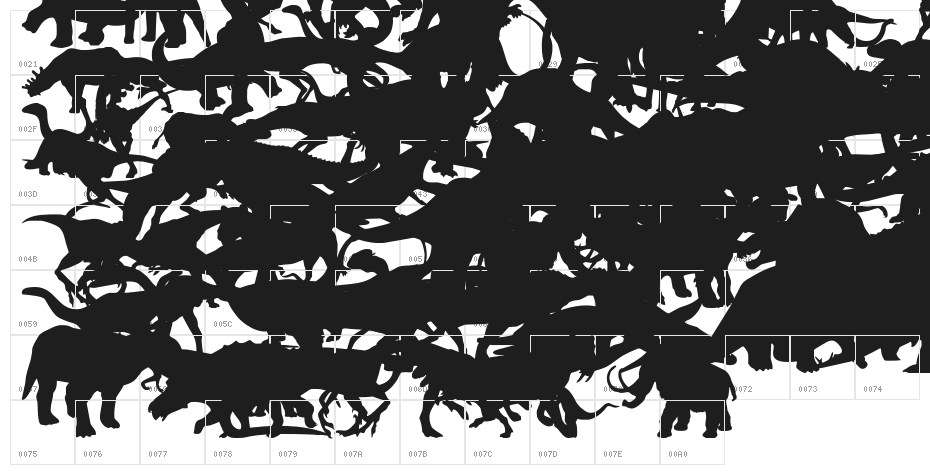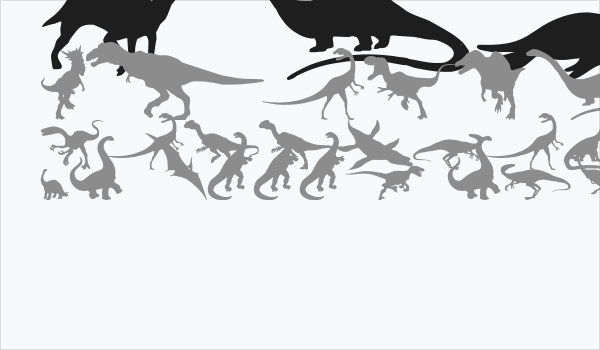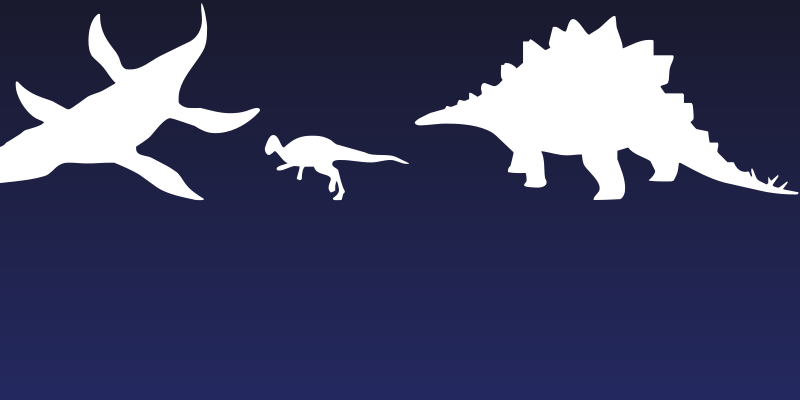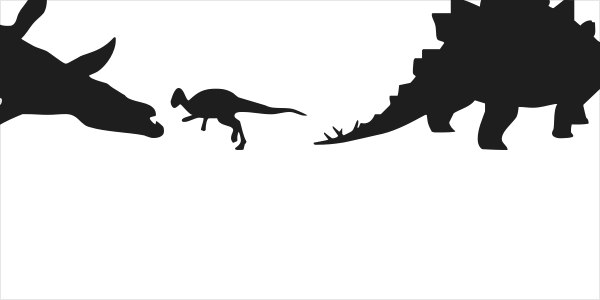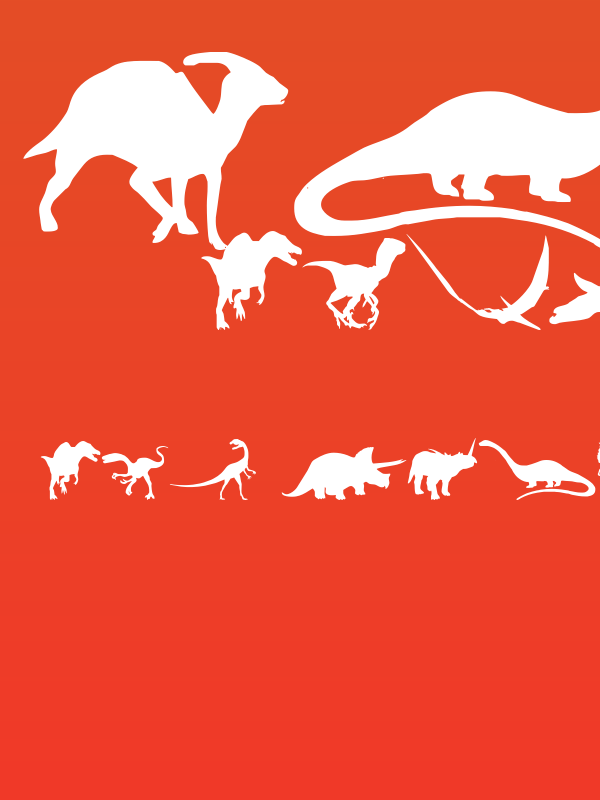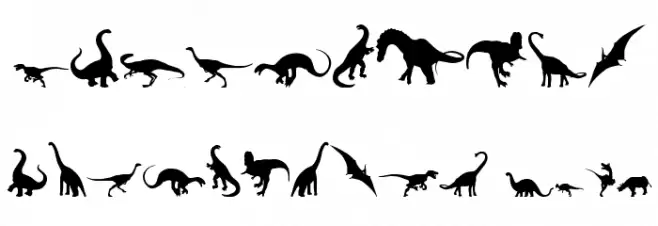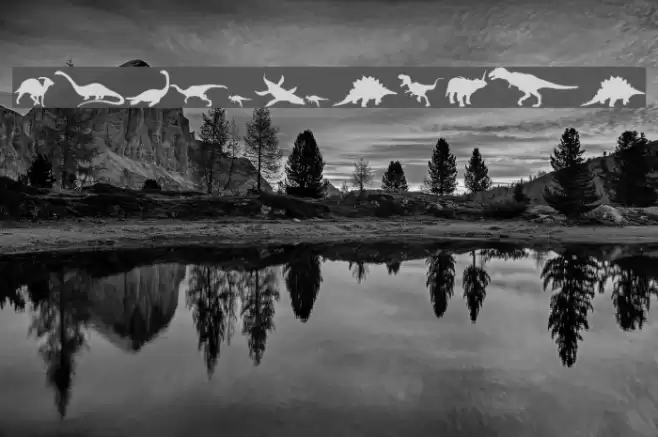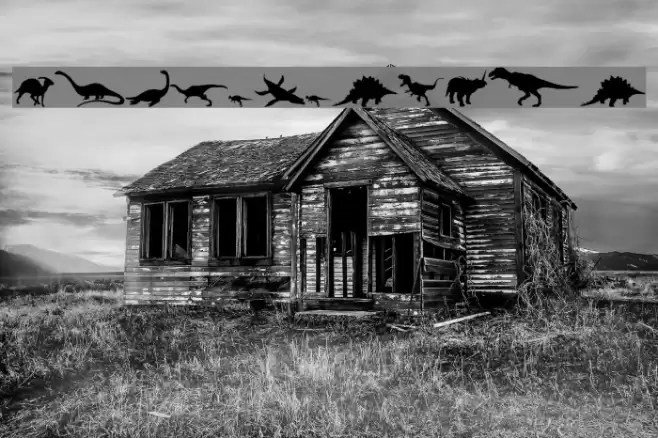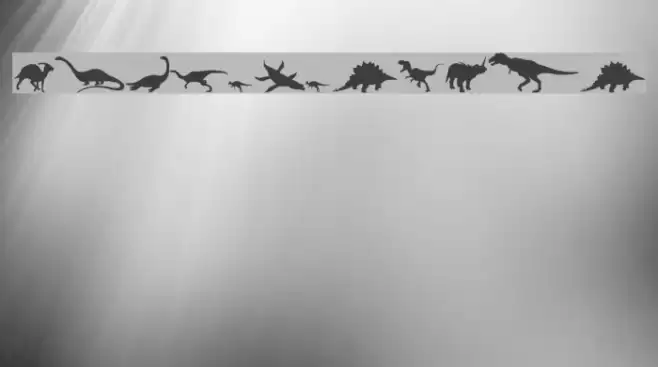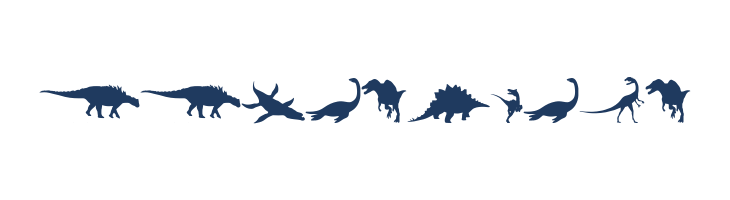
A playful decorative font composed of various dinosaur silhouettes representing each character, with each glyph taking the shape of a different prehistoric creature in solid black. The style is highly illustrative and whimsical, with strong, bold outlines and no internal detail, making each letter or symbol easily recognizable as a dinosaur figure rather than a traditional typographic form.
| Overall Style | Decorative, Playful, Thematic |
| Use Case | Display, Posters, Logos, Themed Events |
| Proposed Projects | Children’s books, educational posters, themed party invitations, playful branding, museum signage, and dinosaur-themed merchandise. |